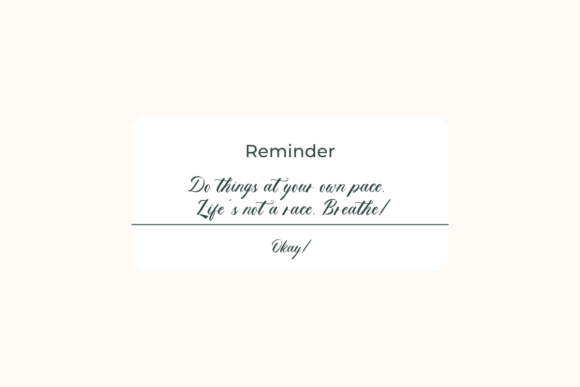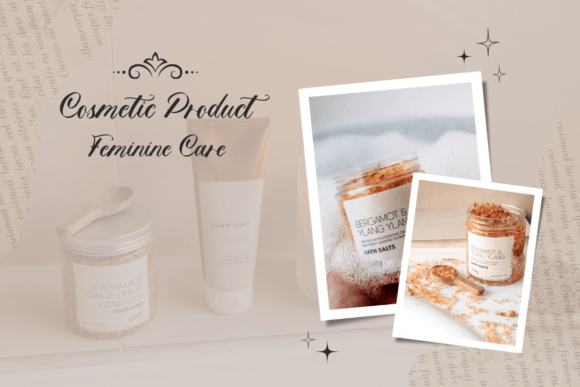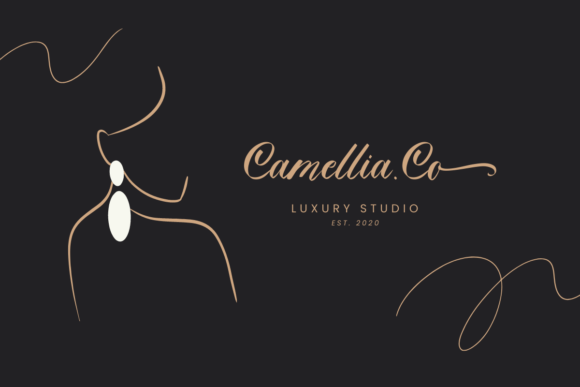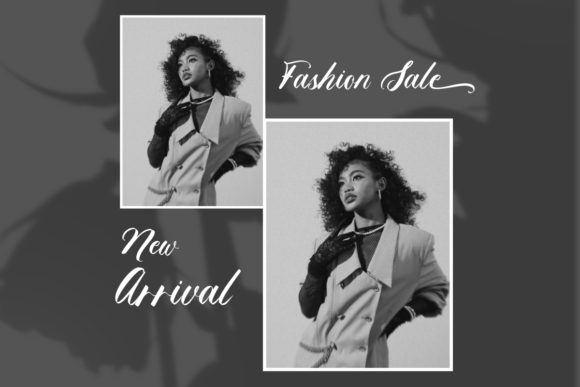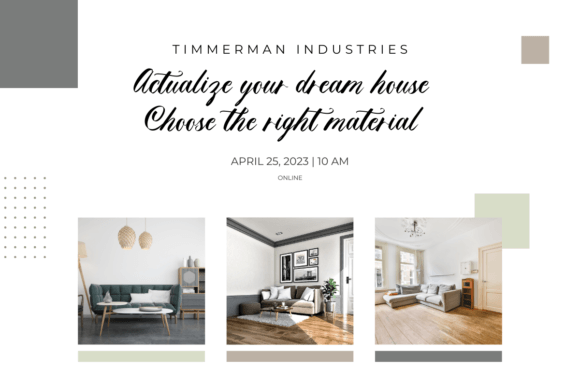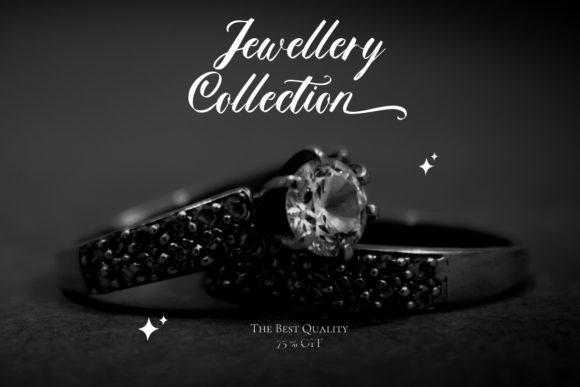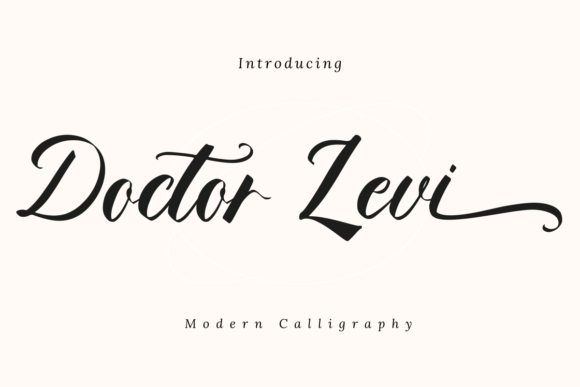
Introducing Doctor Levi Font: Elevate Your Designs with Modern Calligraphy
In the world of typography, a good font can make all the difference in the success of a design project. For designers and crafters looking for a modern and stylish calligraphy font, Doctor Levi Font is an excellent choice. This beautifully crafted font is designed to enhance the beauty of your projects, offering a perfect balance of style and readability.
What Makes Doctor Levi Font Stand Out?
Doctor Levi Font is a modern calligraphy font that strikes the perfect balance between being too thin and too thick. Its unique design makes it versatile and adaptable to a wide range of projects, from elegant wedding invitations and party decorations to stylish logos and branding materials.
One of the standout features of Doctor Levi Font is its varied and balanced design. The font’s characters are carefully crafted to provide a smooth and harmonious flow, making it a joy to use in any design project. Whether you’re working on a digital project or a print design, Doctor Levi Font is sure to impress.
Doctor Levi Font is PUA (Private Use Area) encoded, which means that you can access all the glyphs and ligatures with ease. This feature makes it simple to use the font in your designs, even if you’re not a typography expert. With PUA encoding, you can quickly and easily access the font’s many features, including:
- Glyphs: alternative characters and symbols that can be used to add visual interest to your designs
- Ligatures: combinations of characters that are designed to flow together smoothly
By having easy access to these features, you can create complex and beautiful designs that showcase your creativity and skill.
Doctor Levi Font is an excellent choice for designers and crafters who want to add a touch of elegance and sophistication to their projects. Whether you’re working on:
- Wedding invitations and party decorations
- Digital projects, such as social media graphics and blog posts
- Print designs, such as brochures and flyers
Doctor Levi Font is the perfect choice. Its modern and stylish design makes it versatile and adaptable to a wide range of projects and applications.
Tips for Using Doctor Levi Font
To get the most out of Doctor Levi Font, here are a few tips:
- Use it as a headline font to add visual interest and emphasis to your designs
- Pair it with a simpler font for body text to create a clear and readable design
- Experiment with different colors and textures to add depth and visual interest to your designs
By following these tips, you can create beautiful and effective designs that showcase your creativity and skill.
In conclusion, Doctor Levi Font is a modern and stylish calligraphy font that is perfect for designers and crafters looking to elevate their designs. With its balanced and varied design, PUA encoding, and versatility, this font is sure to become a go-to choice for a wide range of projects and applications. So why wait? Download Doctor Levi Font today and start creating beautiful and effective designs that showcase your creativity and skill.